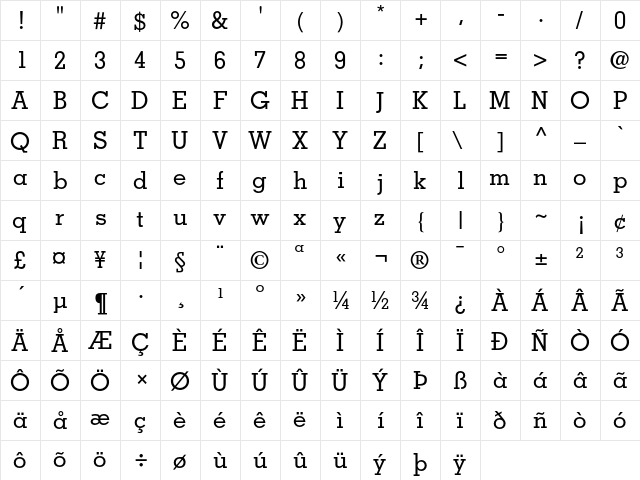
Memphis Medium
Design Context for Memphis Typeface
Memphis takes a measured approach to typography — its balanced proportions and neutral character make it a reliable workhorse for both digital and print work.
Pro Tip: Pair Memphis with a font of contrasting weight or personality to build a more expressive typographic hierarchy.